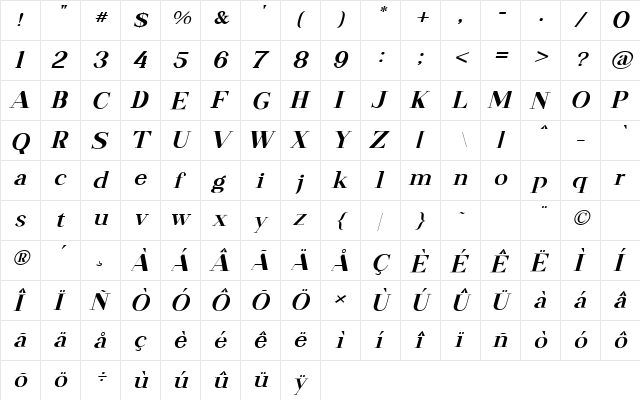
RAINY DAY Italic
| Foundry | 177Studio |
| Designer | 177Studio |
Design Context for RAINY DAY Typeface
RAINY DAY offers clean, dependable letterforms without strong stylistic allegiance, making it a practical choice for designers who need flexibility. The slanted form adds forward momentum and visual energy.
Pro Tip: Use RAINY DAY for emphasis, pull quotes, and subheadings where its slanted energy can add rhythm to the layout.